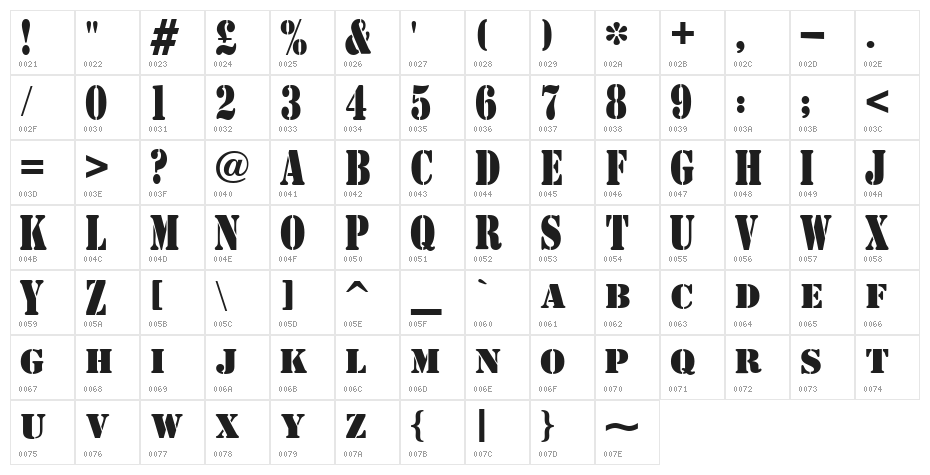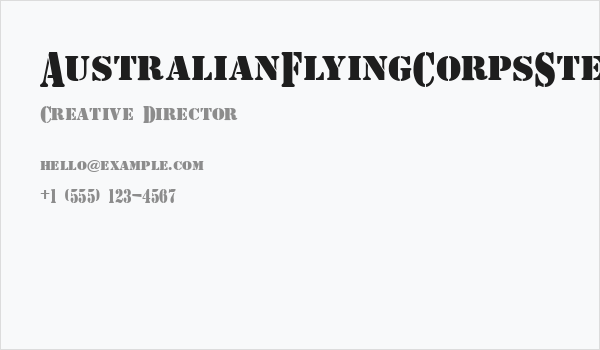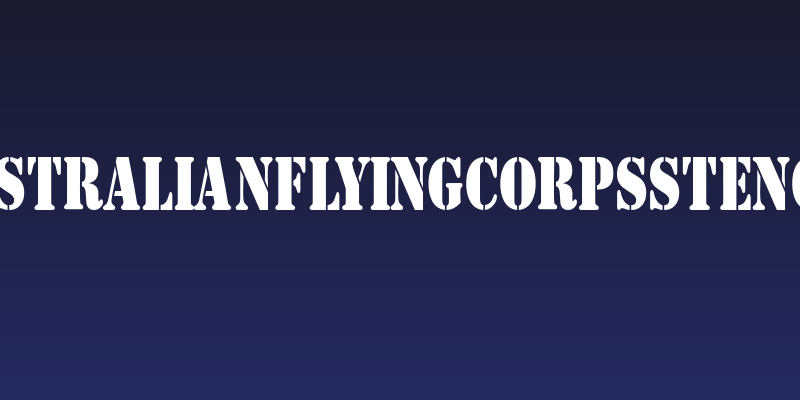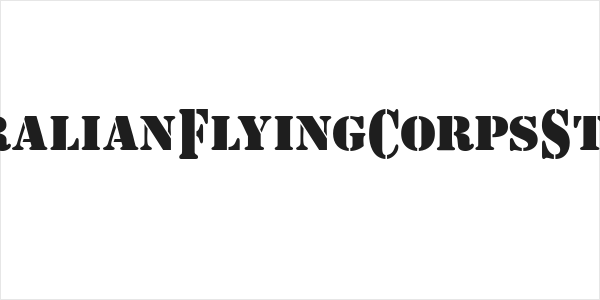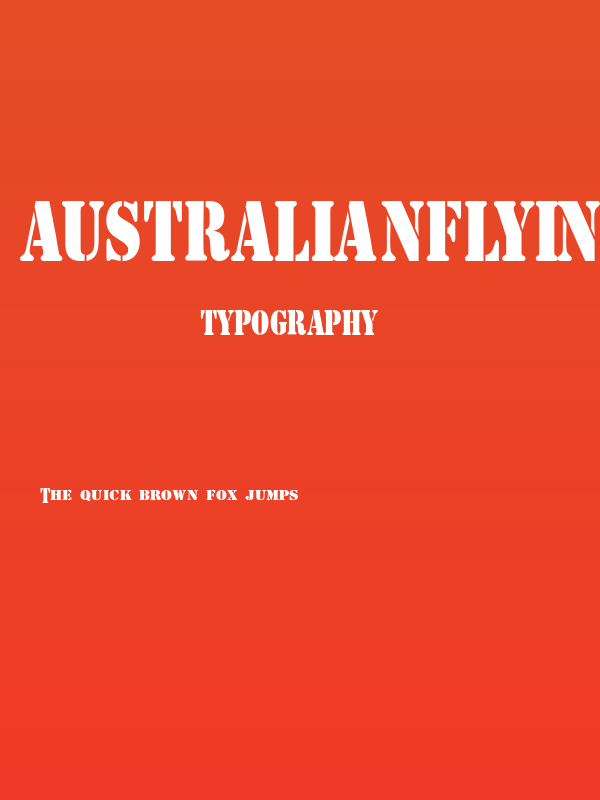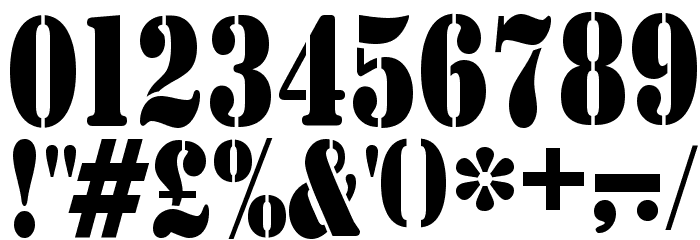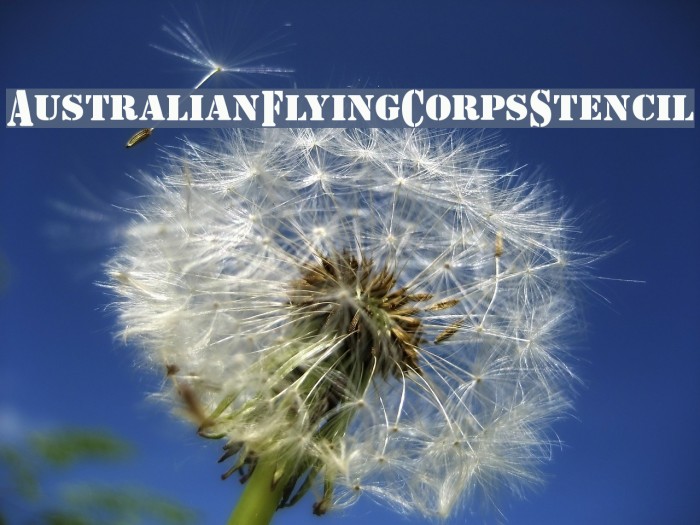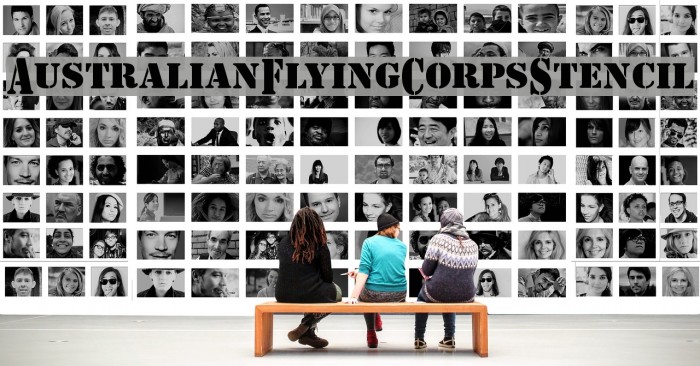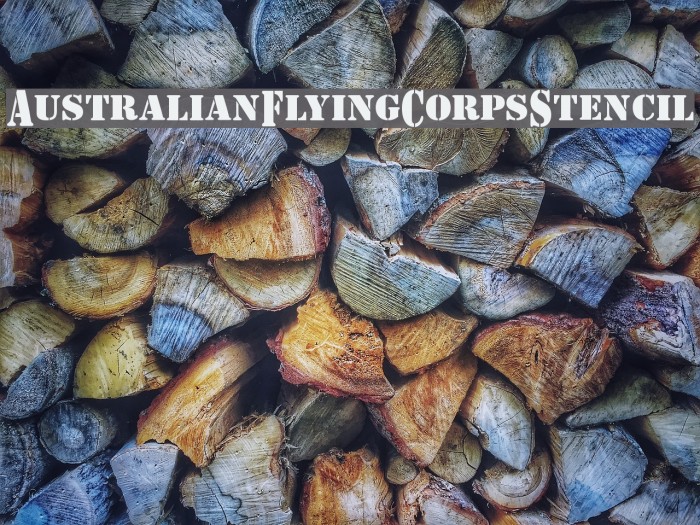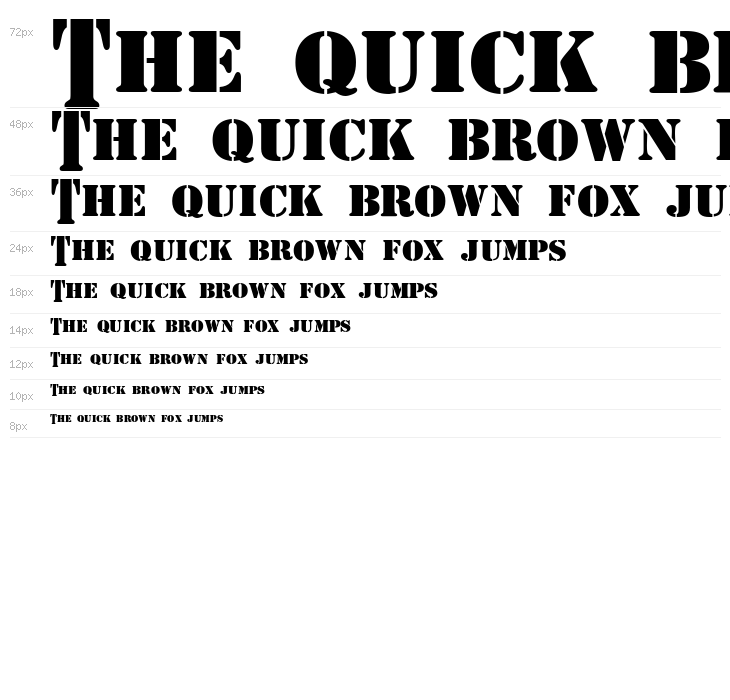
AustralianFlyingCorpsStencil Font
AustralianFlyingCorpsStencil Description
This font features a bold, stencil-like design with strong, thick strokes and distinct cut-out sections that give it a rugged, industrial feel. The uppercase letters are particularly striking, with sharp angles and a solid presence that commands attention. The numbers and special characters maintain this robust style, making them ideal for impactful designs. The font's stencil nature suggests a utilitarian origin, reminiscent of military or industrial applications, yet it carries a modern twist that makes it versatile for contemporary use.
| Proposed Projects | Ideal for projects requiring a bold statement, such as posters, signage, branding for industrial products, or military-themed designs. |